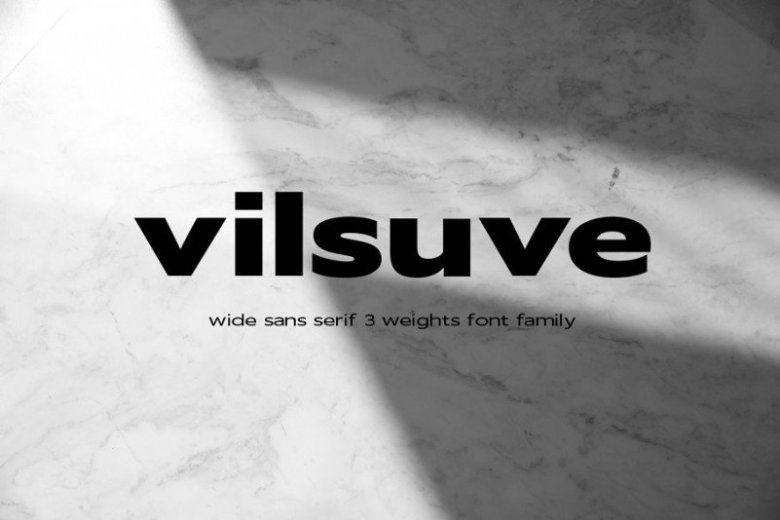
Vilsuve Sans Font Family
Vilsuve Font is a wide sans serif. The font is modern and playful with a grotesk feel. Perfect for print and web design. It’s designed and shared by TypoBureau Studio. It’s a strong capitals and a sharp, open lowercase are effective in a variety of applications. Tempered by sharp edges and vibrant shapes. Vilsuve works great in any branding, films, magazines, header, logos. The different styles give you option to explore a whole host of applications, while the oblique and lowercase alternates fonts give a real modern feel to any project.